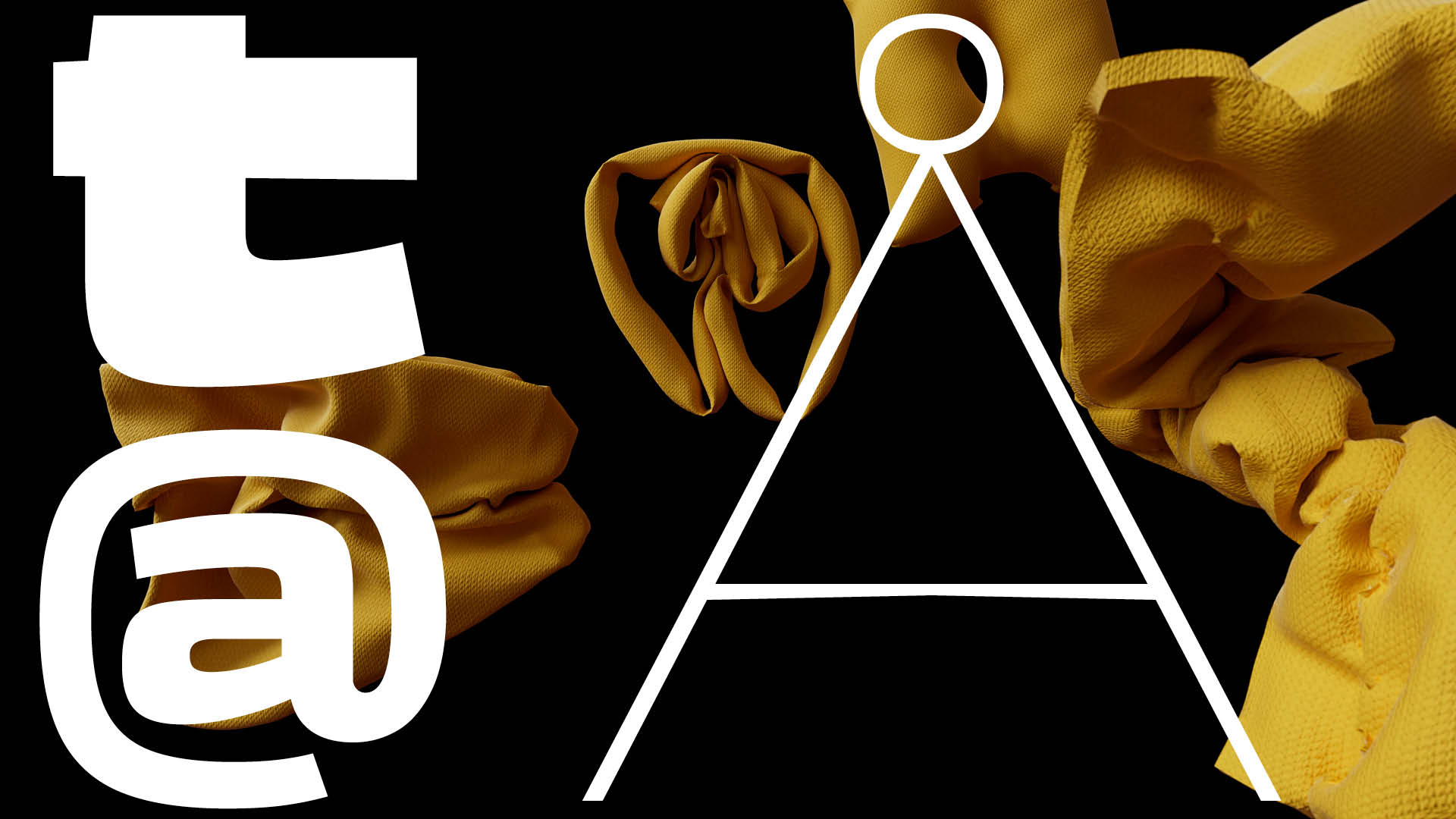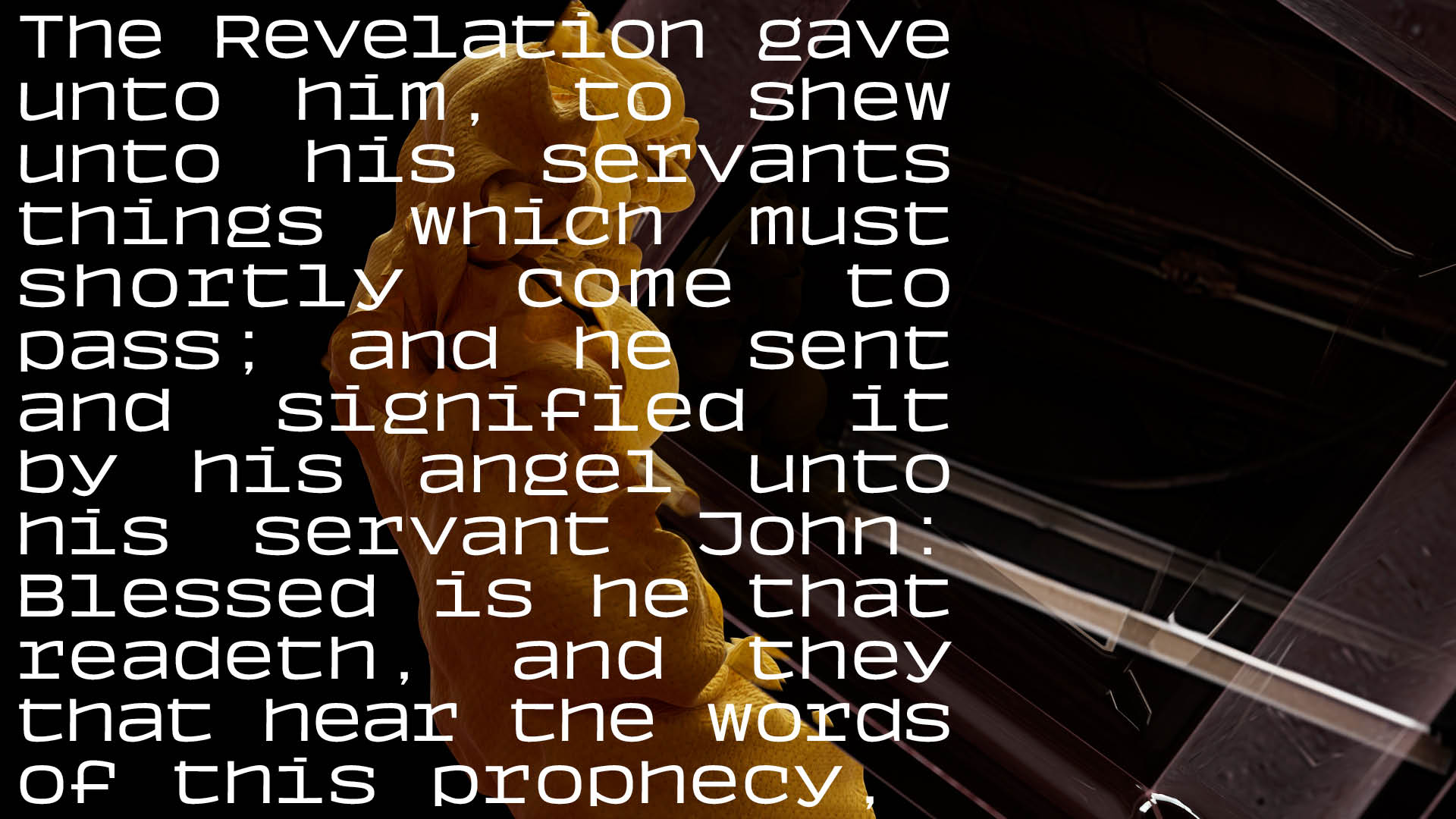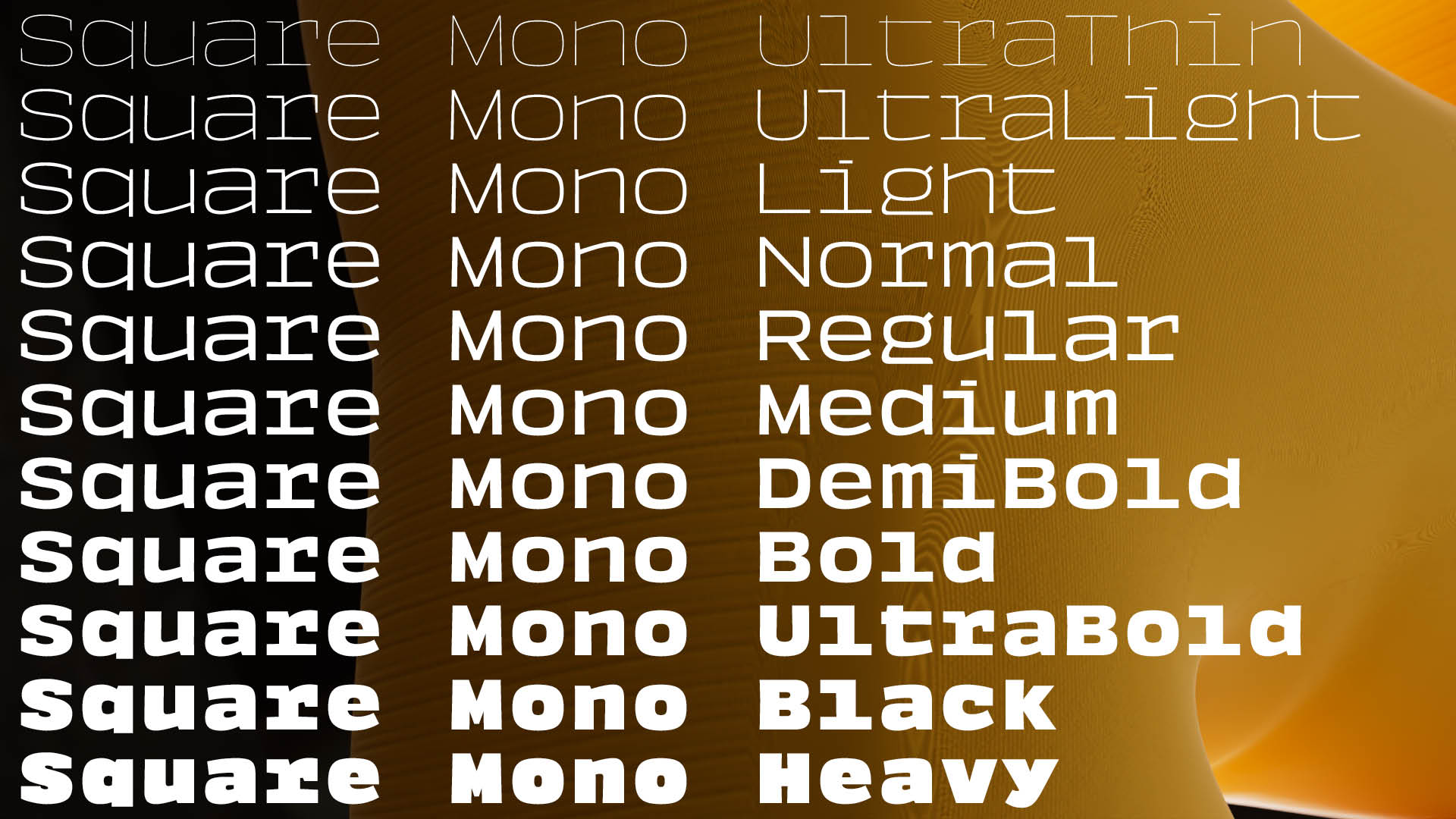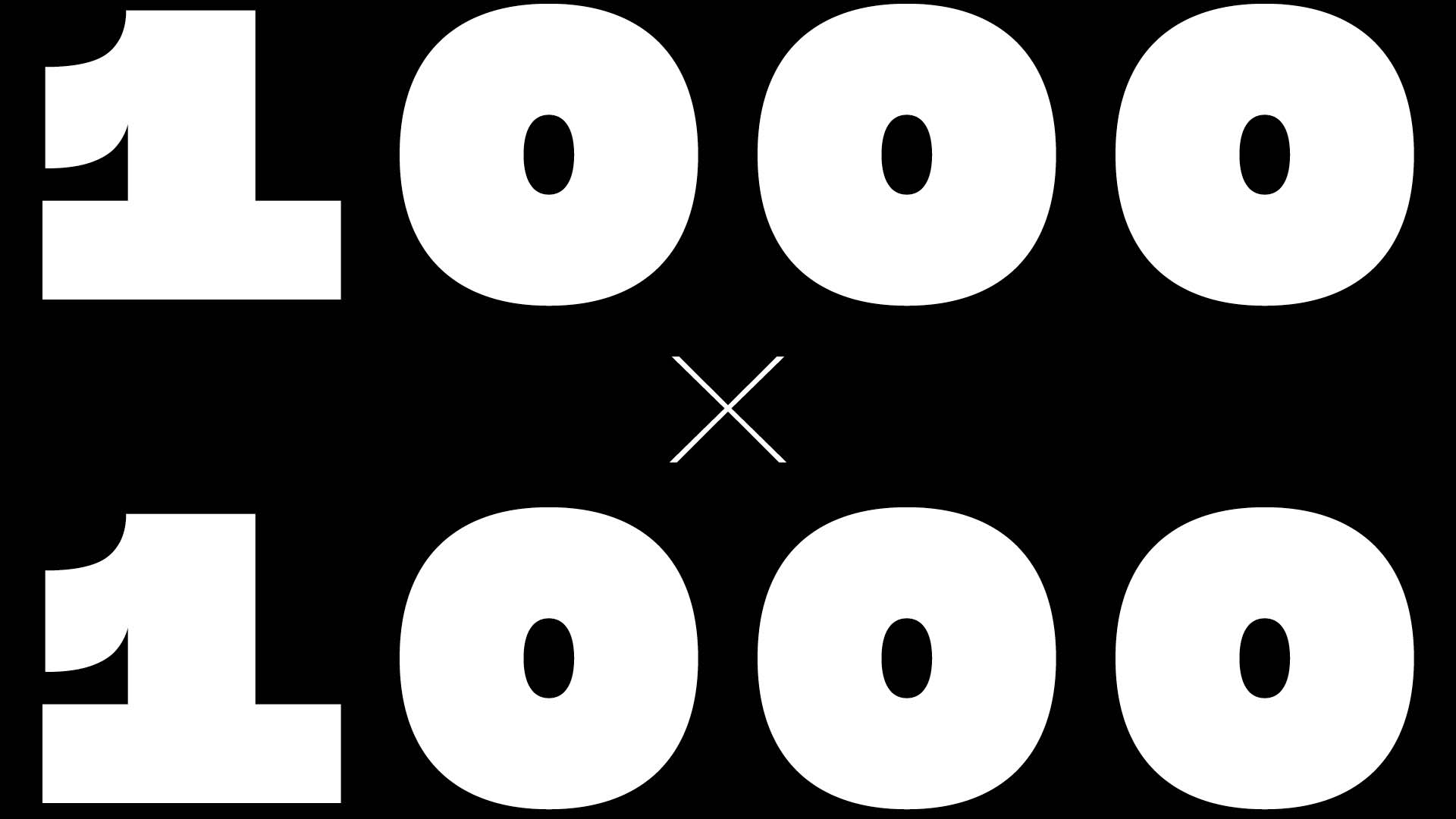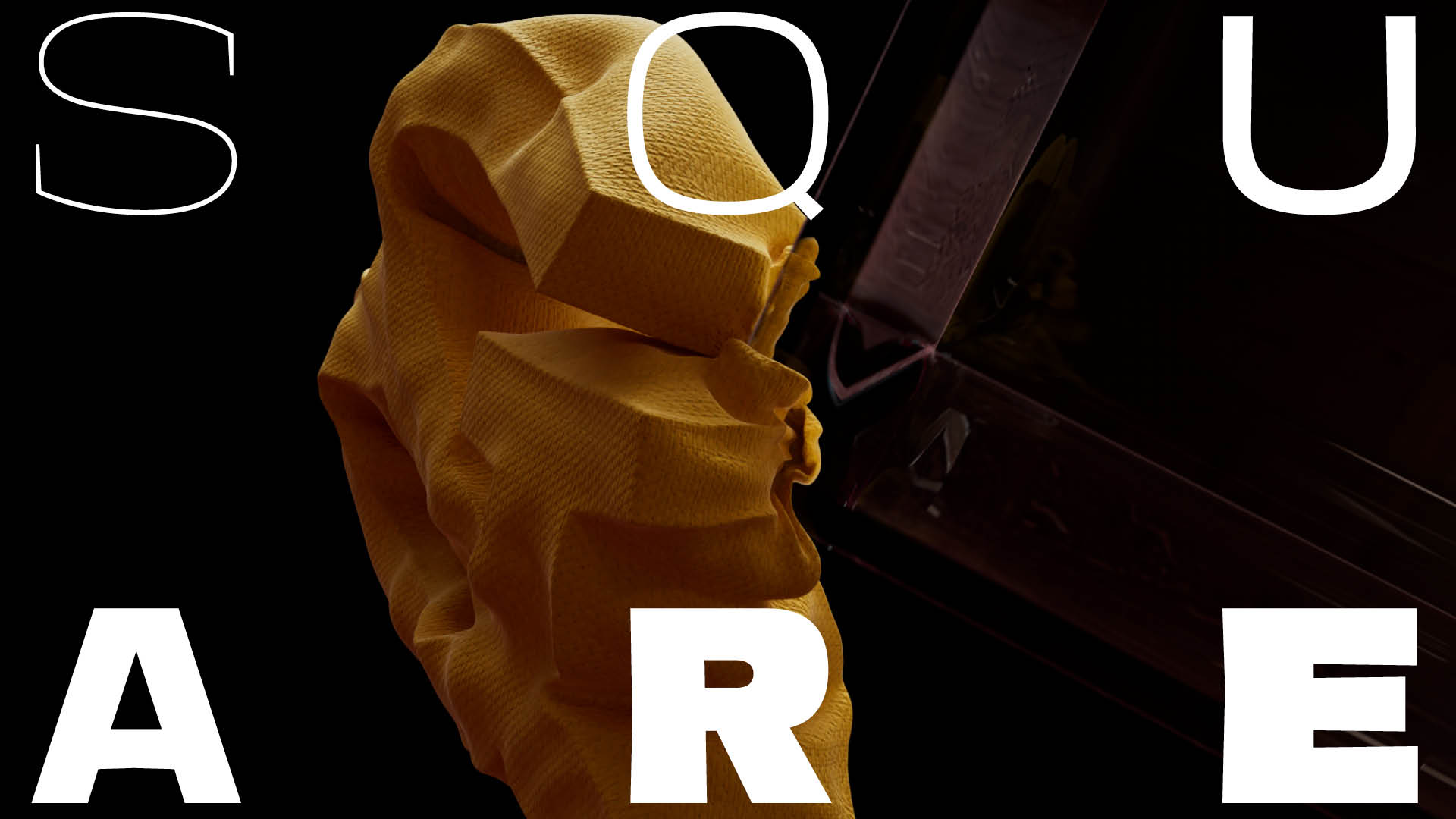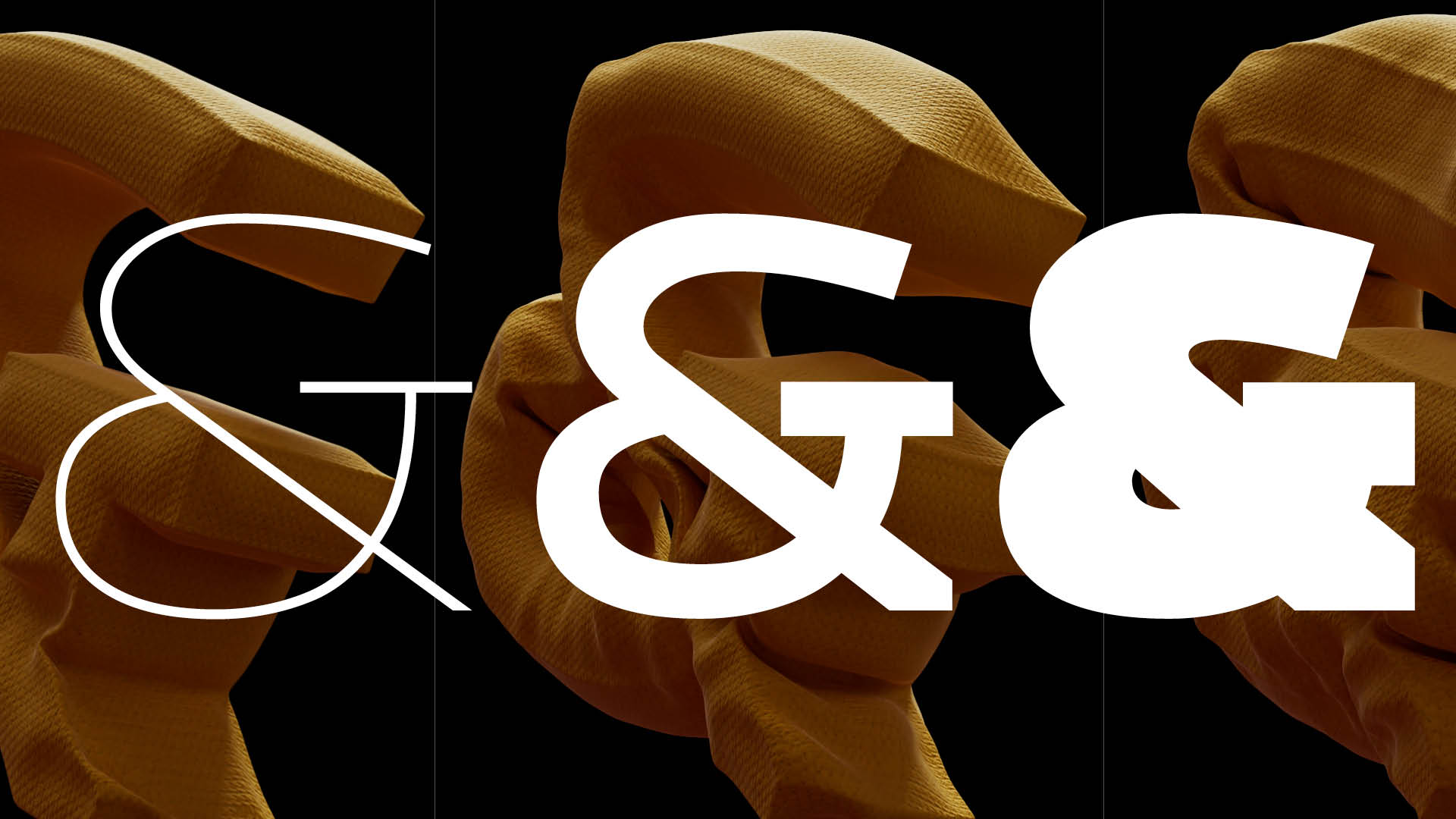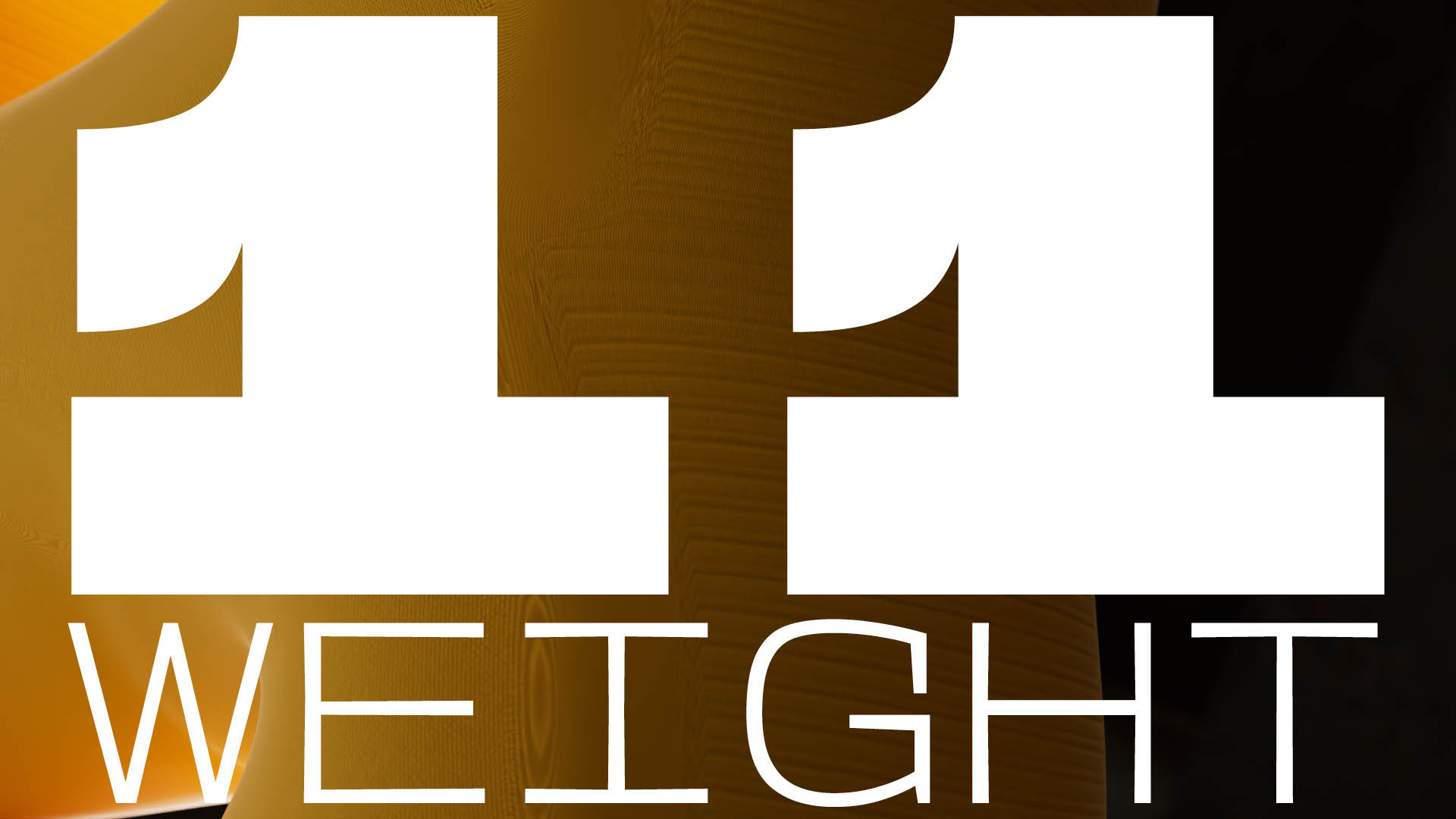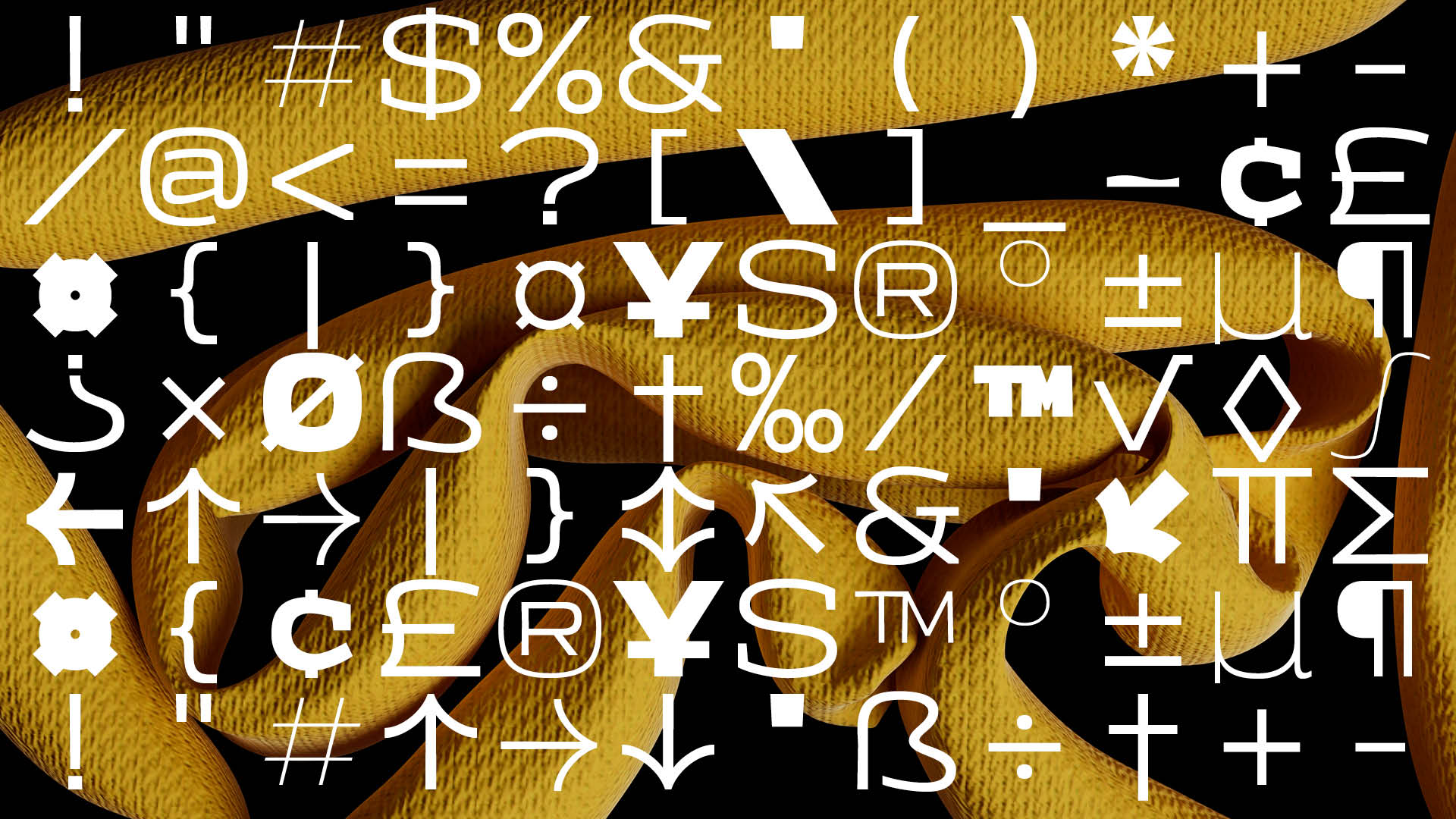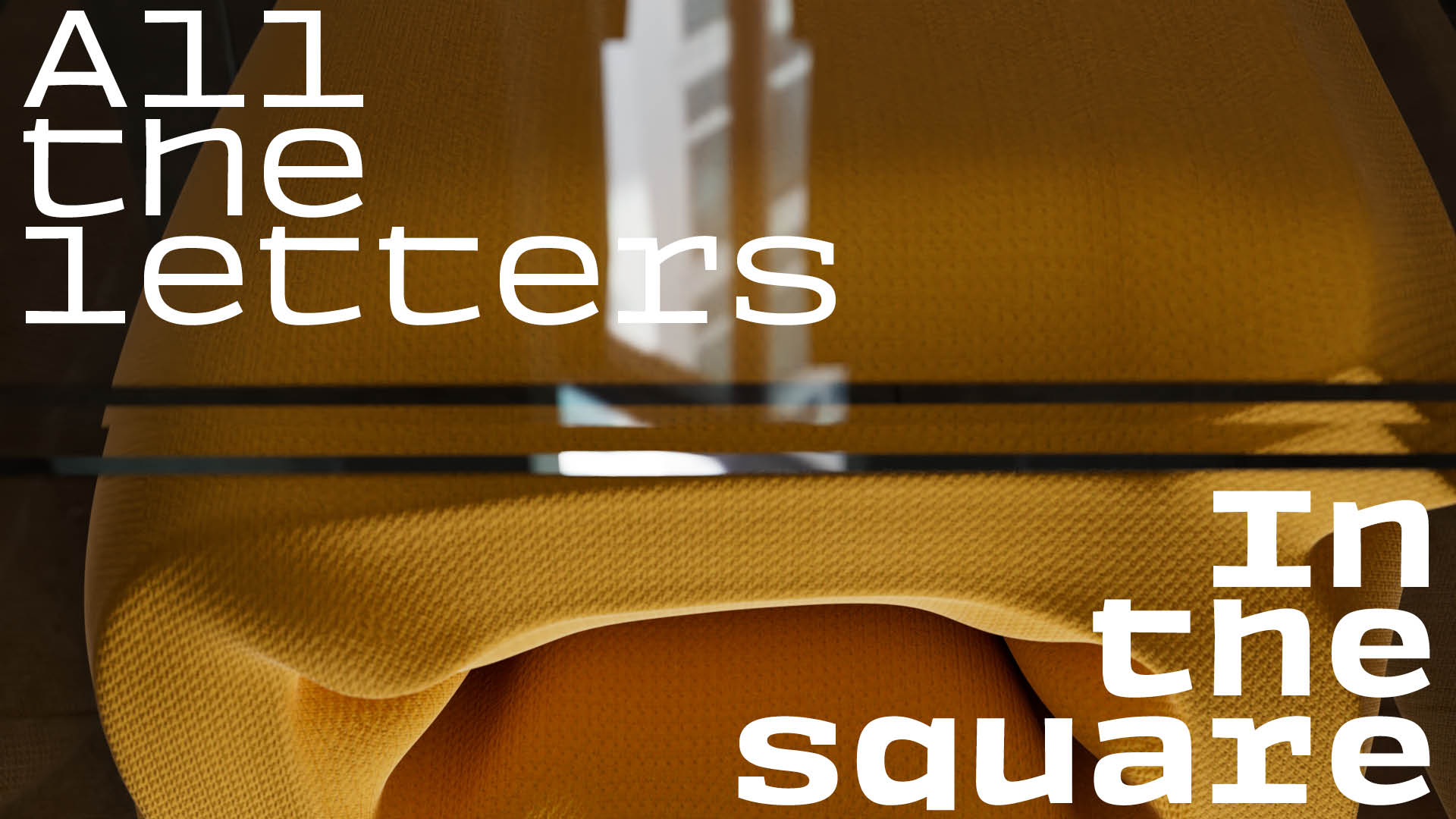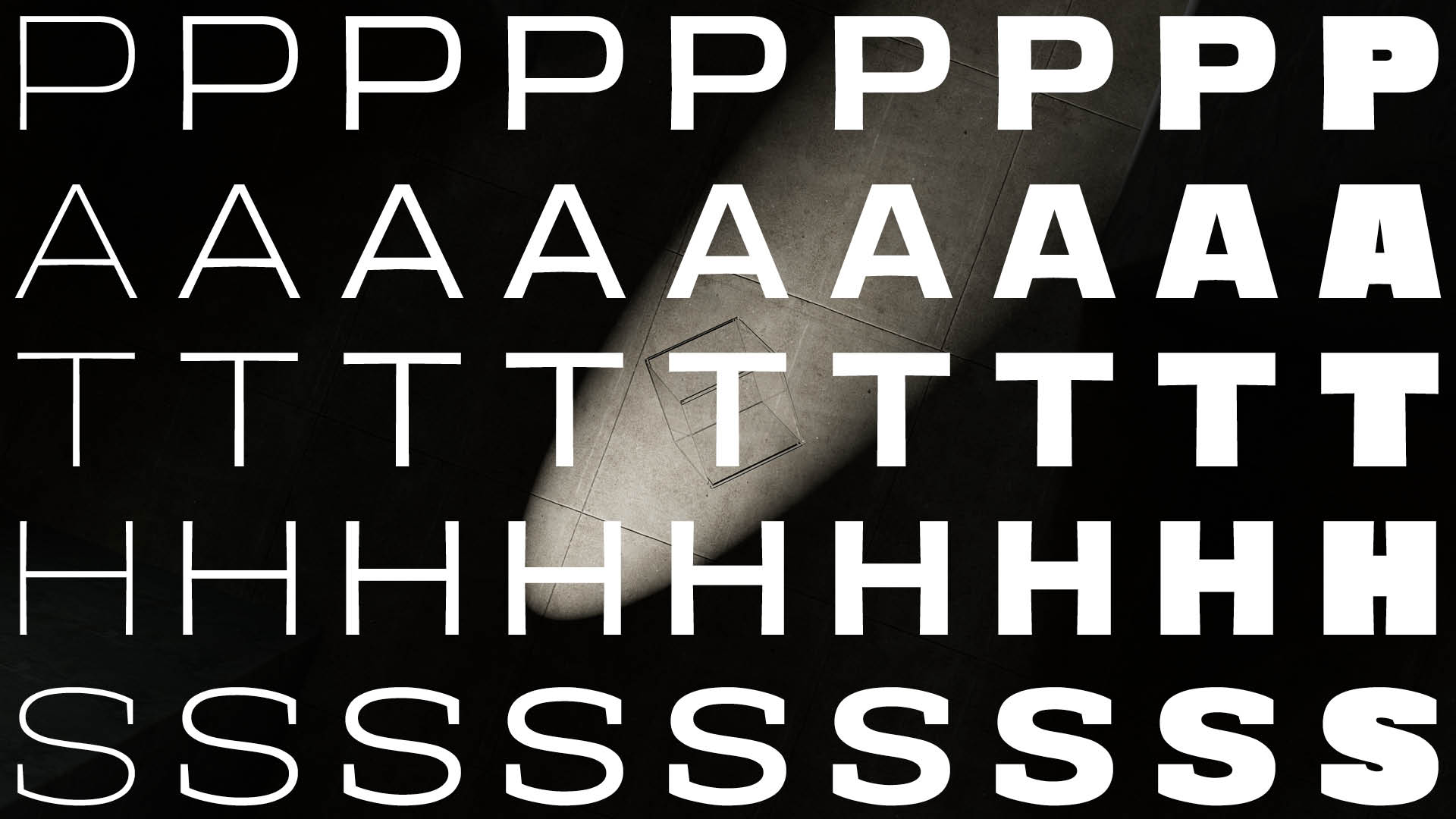
Square
Square font is a mono font, each sign is built within the constraint of a square, which enables it to be written from top to bottom and horizontally and vice versa. The initial idea for Square font was to imagine a square (a small park, in French), seen from above: if you look at the lightest version, the shape of the letter defines the park by its external contour. If you consider the boldest version, it defines the surface of the park…. The outline of the letters are lively and slightly flared, the counter-forms now look like kids playing there on a Saturday. The character fills and empties from the inside while keeping the same outline in each version, which allows many games of superposition with this mono font.
Raphaël Lefeuvre